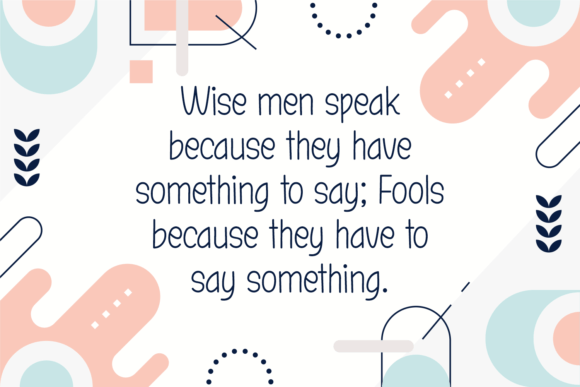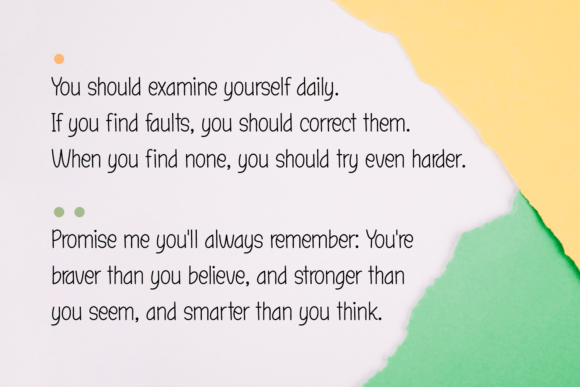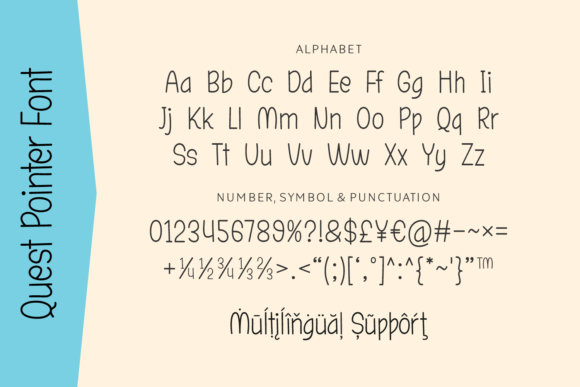
Introduction to Quest Pointer Font
Remember that moment when you’re brainstorming a creative project and you’re searching for the perfect font to give it that extra oomph? You scroll through your design resources, trying to find that elusive balance of style and readability. For many designers, this is a daily struggle. But what if I told you that there’s a font that can make your life easier? Introducing the Quest Pointer Font, a beautiful, handwritten font that’s designed to adapt to any design need.
With its clean, flowing letterforms and modern style, Quest Pointer Font is the perfect addition to any design project. Whether you’re working on social media graphics, blogs, branding, or editorial designs, this font is a valuable asset that can elevate your work to the next level. Plus, with its free download option, you can start using it right away and see the difference it can make in your designs.
Key Features of Quest Pointer Font
- High-quality design for a creative project, ensuring a professional look and feel.
- Transparent background, allowing for easy customization and integration with any design resource.
- Optimized for high-resolution displays, ensuring crisp and clear rendering at resolutions up to 300 DPI.
- Designed to be highly legible and easy to read, even at small font sizes, making it perfect for use in UI design and digital signage.
- Includes a range of stylistic sets and language support, allowing for versatility and flexibility in its application.
Honest Review: Quest Pointer Font
I recently had the chance to try out the Quest Pointer Font, and I must say it’s been a game-changer for my creative projects. This font is perfect for any design resource that needs a high-quality, modern touch.
Here’s what I like about it:
- ✨ Its transparent background makes it super easy to work with, allowing me to layer it seamlessly with other design elements.
- ✨ The font is incredibly versatile, suitable for a wide range of creative projects, from logos to signage and everything in between.
Now, I do have to mention a few limitations:
- ⚠️ The font can be a bit too bold at times, which may not be suitable for all design applications.
- ⚠️ Some users may find the font’s modern style a bit too trendy, which could make it less timeless.
Overall, I’m really impressed with the Quest Pointer Font. It’s a solid addition to any design resource library, and I’m excited to see how it will help take my creative projects to the next level.
Getting the Most Out of Quest Pointer Font
To get the most out of the Quest Pointer Font, experiment with different font sizes, styles, and colors. You can also combine the Quest Pointer Font with other design resources, such as graphics and images, to create a unique and eye-catching design. With the Quest Pointer Font, you can create high-quality designs that stand out from the crowd.
The Quest Pointer Font is a versatile design resource that can be used in a variety of creative projects, such as:
- Poster design
Is the Quest Pointer Font available in different font sizes and styles?
Yes, the Quest Pointer Font is available in multiple font sizes and styles. The font file includes a range of sizes, from 12 to 48 points, as well as bold and italic variations. This allows you to customize the font to fit your specific design needs and ensure that your text is always readable and visually appealing.